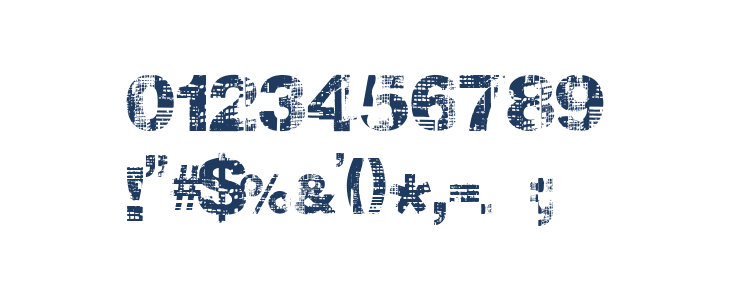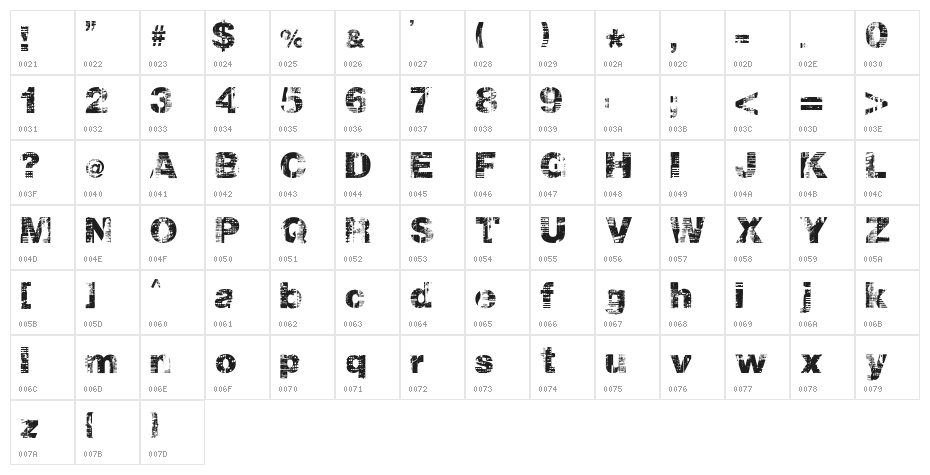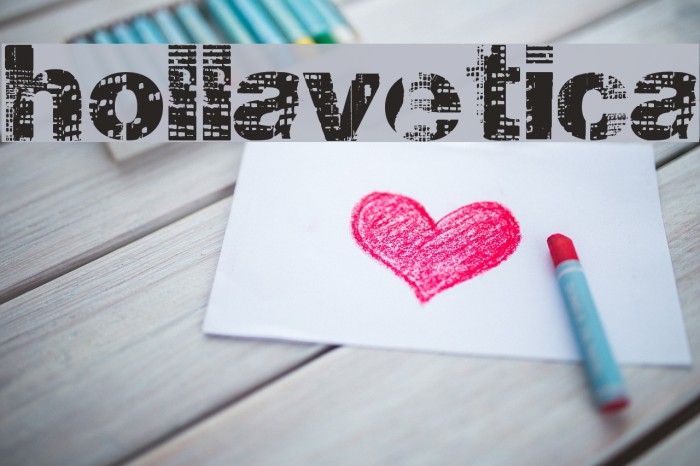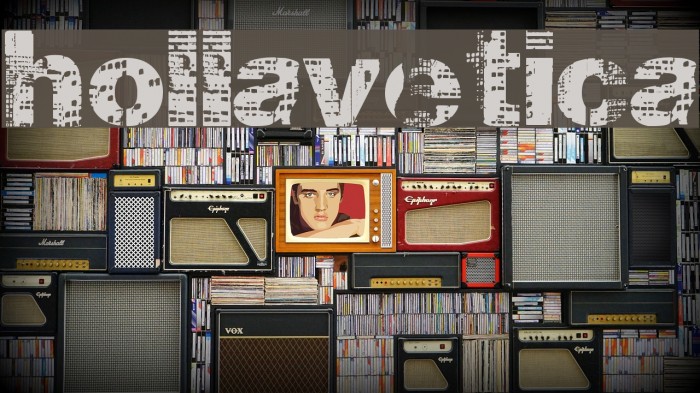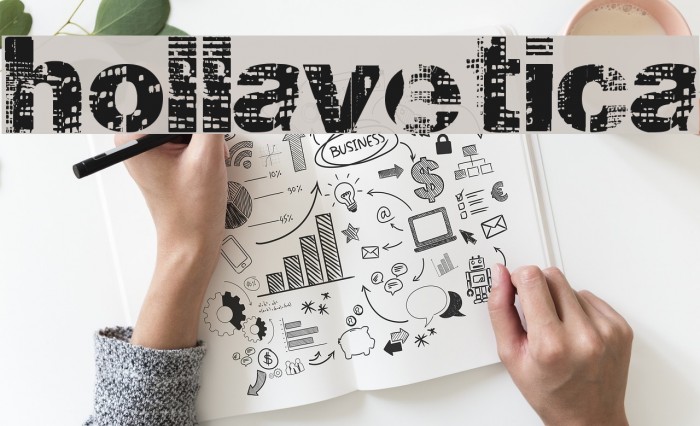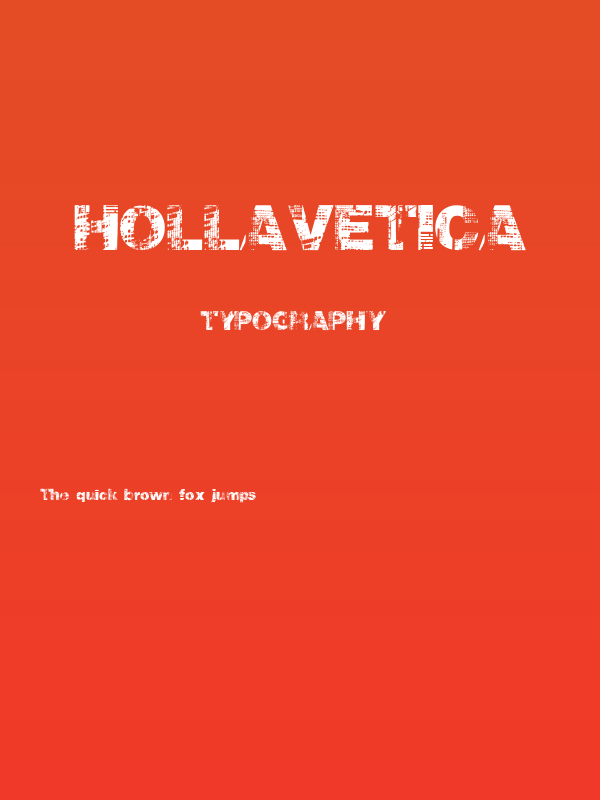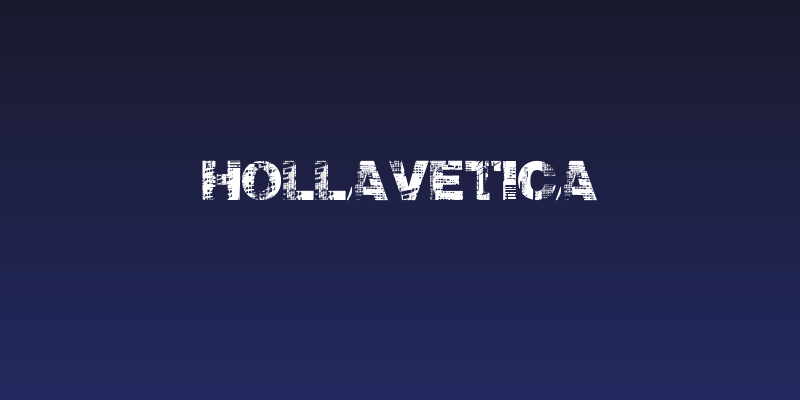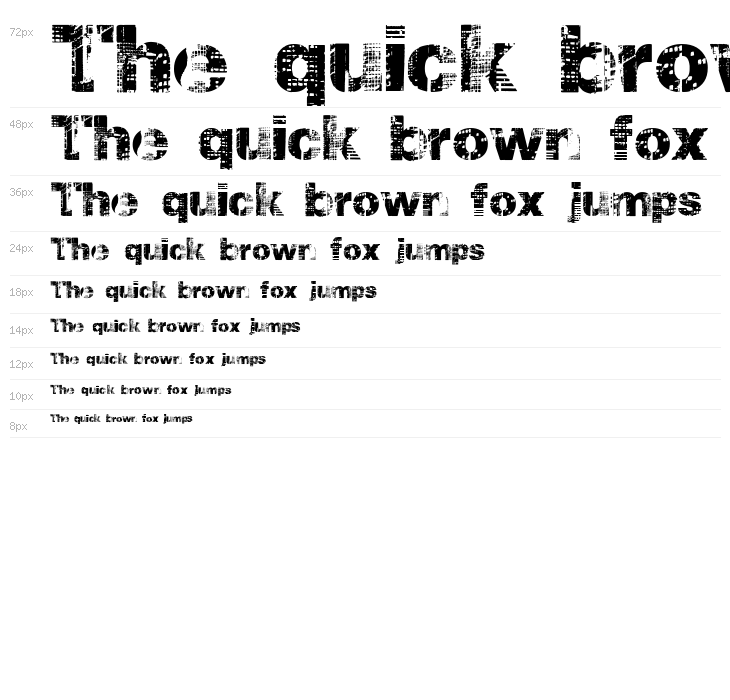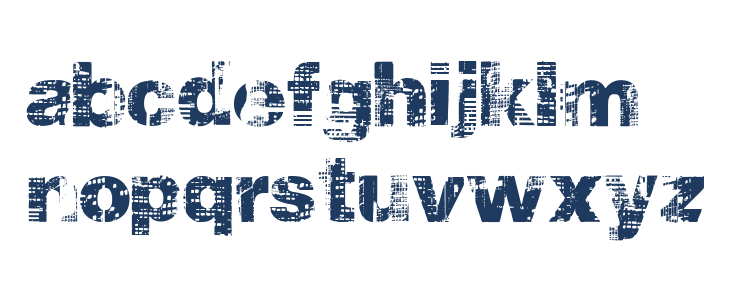
hollavetica Font
hollavetica Description
This font features a distressed, grunge aesthetic with a bold and impactful presence. Each character is heavily textured, giving the appearance of being worn or eroded. The uppercase and lowercase letters maintain a consistent width, while the numbers and special characters follow the same rugged style. The font's unique design makes it stand out, ideal for projects that require a raw, edgy look. Its boldness and texture make it suitable for attention-grabbing headlines or artistic designs.
| Overall Style | Grunge, Distressed |
| Use Case | Headlines, Posters, Artistic Designs |
| Proposed Projects | Ideal for album covers, posters, urban-themed designs, and any project needing a gritty, textured look. |